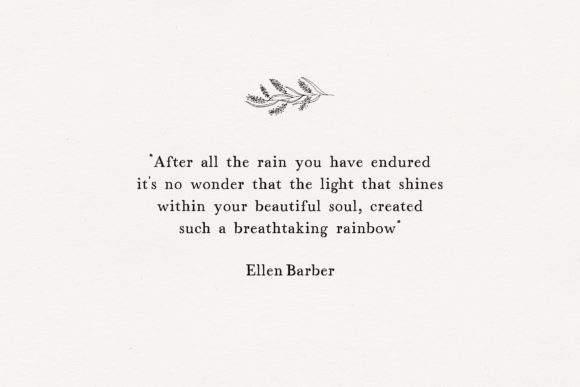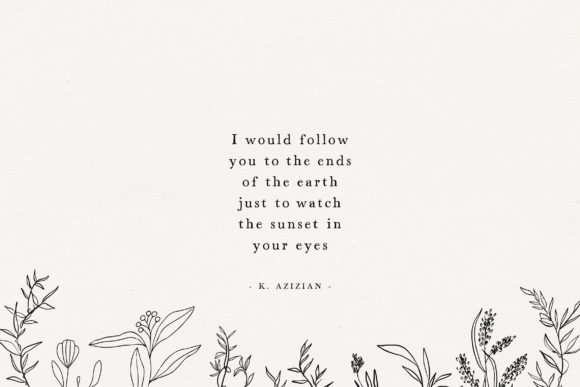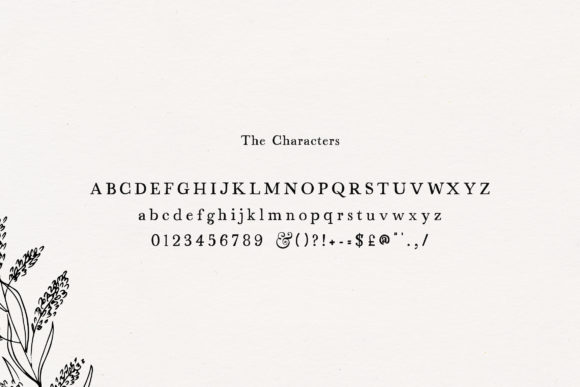
Alchemist Font
Alchemist is a new handwritten serif font that you can use for wedding designs, quotes, save the date cards, greeting cards, magazines, clothing, logo designs, and much more!